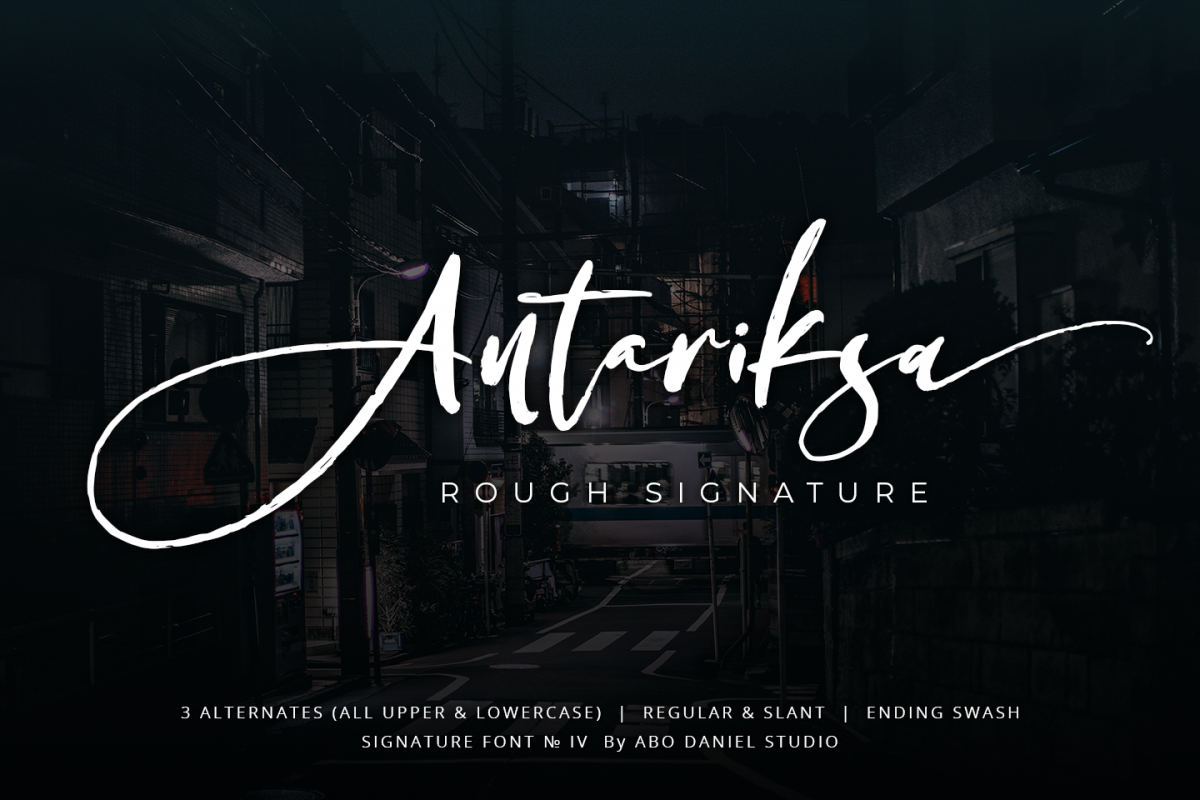
Antariksa -Rough Signature-
Antariksa Regular
Antariksa Slant
introducing
Antariksa
-Modern Handwritten Script-
Antariksa is great for Signature, logos, branding, advertising, titling, quotes, and more.
I've created 2 style alternates, so this product has 3 different styles.
You can combine the alternate as you like. It will be the perfect combination.
I am also created Slant version, to give various optional.
The ending swashes make this product so complete and perfect.